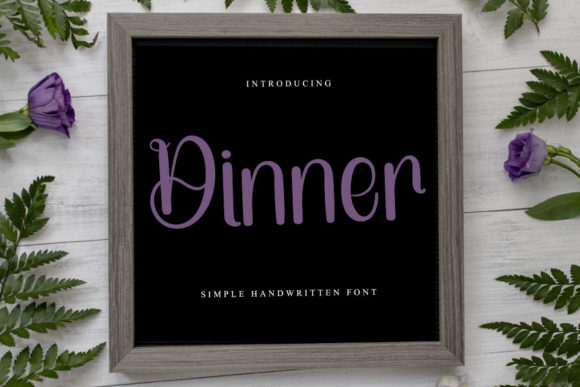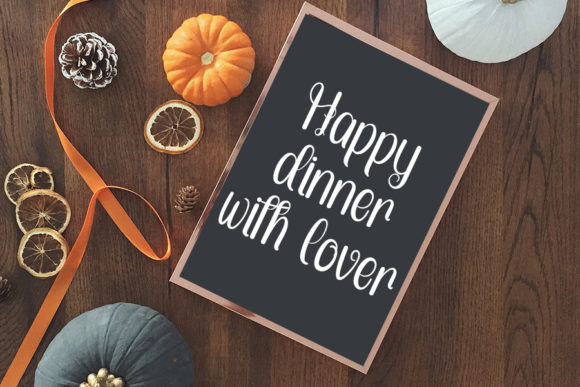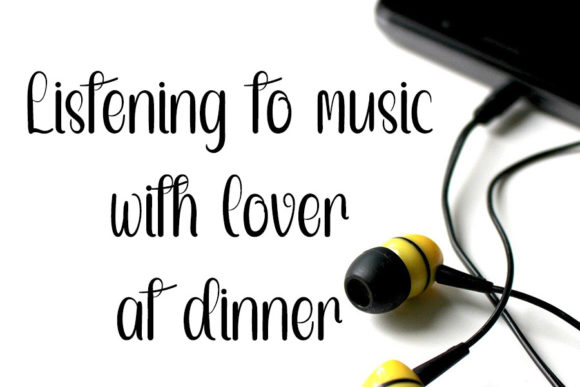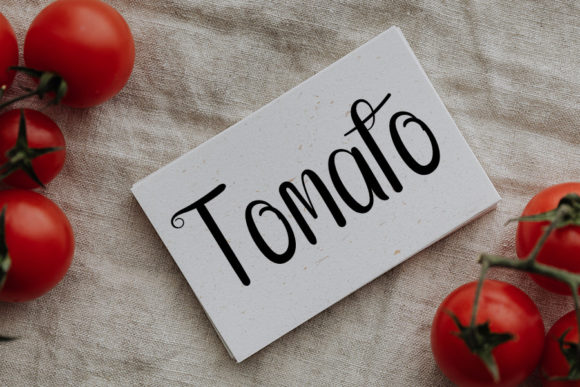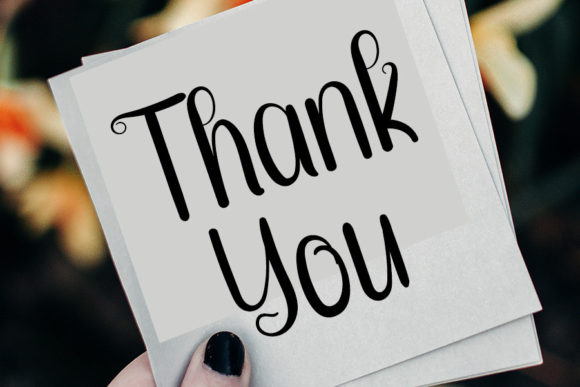
About Dinner Font
Dinner is a chic handwritten font with an impeccable form, inspired by a timeless calligraphy. Balanced and varied, this font was designed to enhance the beauty of your projects.